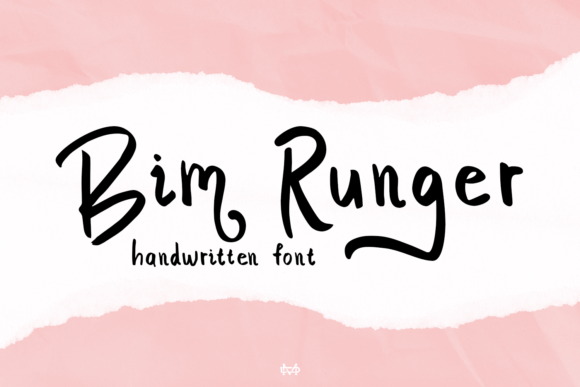
Unleash the Power of Expression with Bim Runger: The Script Font That Captures the Essence of Elegance
In a world saturated with digital communication, your words have the power to cut through the noise and leave a lasting impression. Elevate your designs with Bim Runger, the captivating script font that exudes timeless elegance and sophistication.
Crafted with the utmost precision, Bim Runger emanates a graceful flow that mirrors the beauty of handwritten calligraphy. Its meticulously designed curves and flourishes lend an air of authenticity and charm to your creations, evoking a sense of nostalgia and artistry.
Whether you're crafting stunning presentations, designing eye-catching branding, or creating heartfelt invitations, Bim Runger is your perfect companion. Its versatility knows no bounds, adapting seamlessly to a wide range of projects.
Immerse yourself in the world of Bim Runger and discover the endless possibilities it holds. Let your creativity soar as you explore the subtle nuances of its ligatures and the delicate balance of its letterforms. With Bim Runger, you'll elevate your designs to new heights, leaving an enduring mark on your audience.
Dive into the Enchanting Realm of Bim Runger and Witness the Transformation of Your Creative Endeavors:
- Elevate Your Presentations: Transform dull slides into captivating masterpieces. Bim Runger's graceful strokes and elegant charm will add a touch of sophistication to your presentations, ensuring your ideas shine.
- Forge a Unique Brand Identity: Create a brand identity that exudes timeless appeal. Bim Runger's distinct character will set your brand apart, leaving a lasting impression on your customers.
- Craft Heartfelt Invitations: Convey the warmth and sincerity of your events with Bim Runger. Its delicate curves and flowing lines will add a personal touch to your invitations, making them truly memorable.
- Design Captivating Posters: Unleash your creativity and craft posters that demand attention. Bim Runger's bold strokes and sweeping flourishes will transform your messages into visually striking masterpieces.
- Create Memorable Logos: Design logos that resonate with your brand's essence. Bim Runger's graceful lines and intricate details will give your logo a timeless appeal, ensuring it stands the test of time.
Embark on a Journey of Creative Expression with Bim Runger:
- Immerse yourself in a world of endless possibilities, where your imagination knows no limits. Bim Runger is your gateway to a world of elegance and beauty, empowering you to transform your creative visions into tangible realities.
- Experience the joy of crafting designs that captivate and inspire. With Bim Runger as your muse, you'll discover new depths of creativity, pushing the boundaries of your imagination.
- Leave an indelible mark on the hearts and minds of your audience. Bim Runger will amplify your message, ensuring it resonates with your audience and leaves a lasting impact.